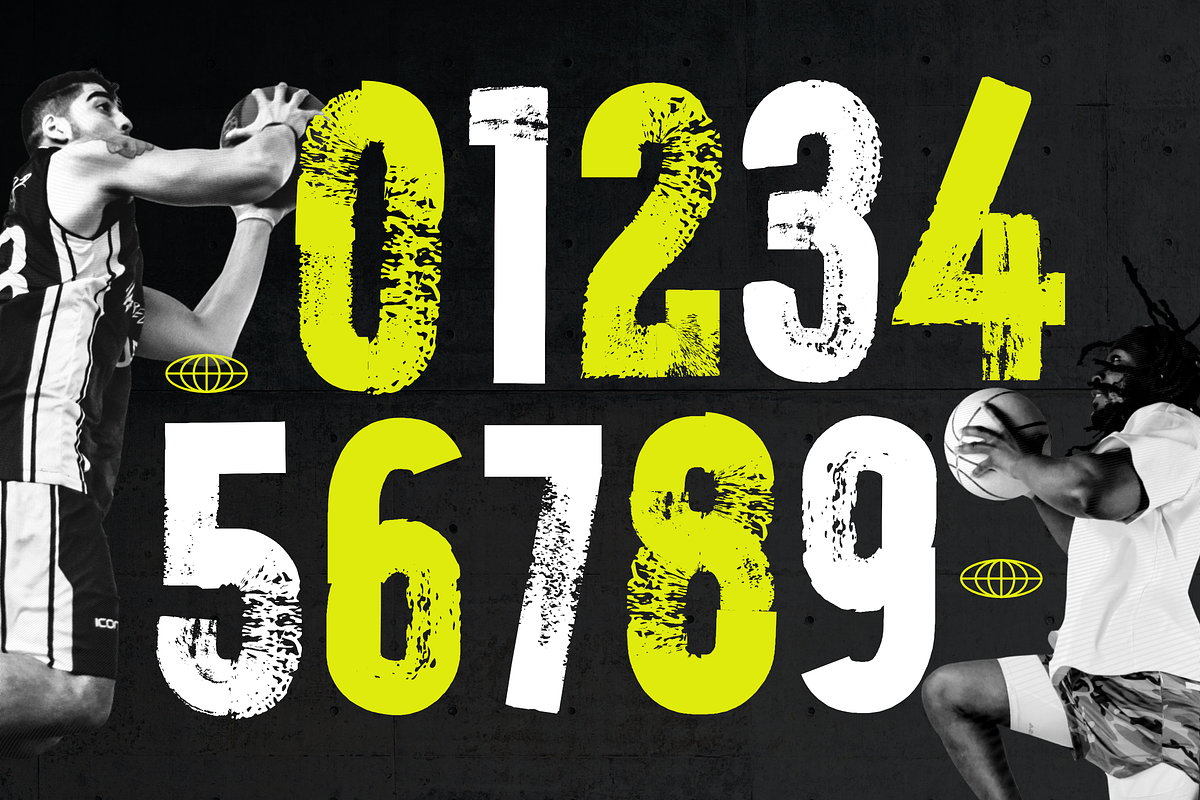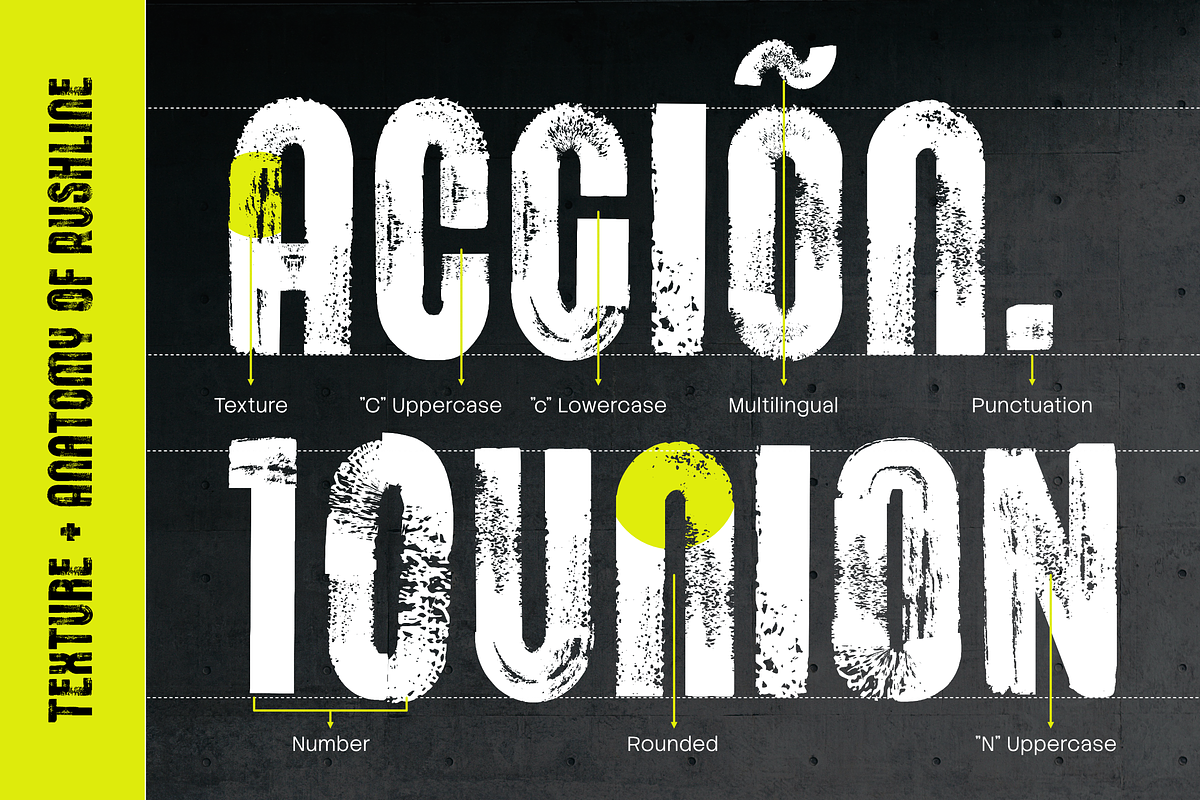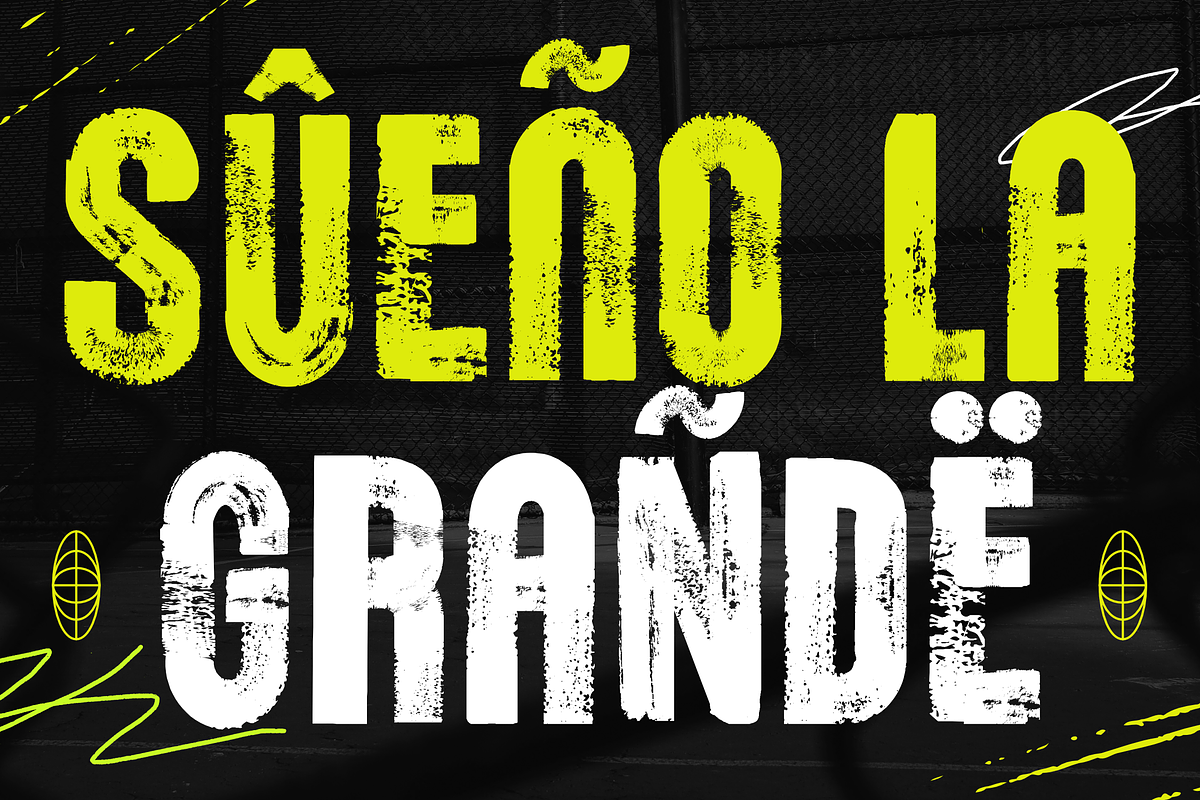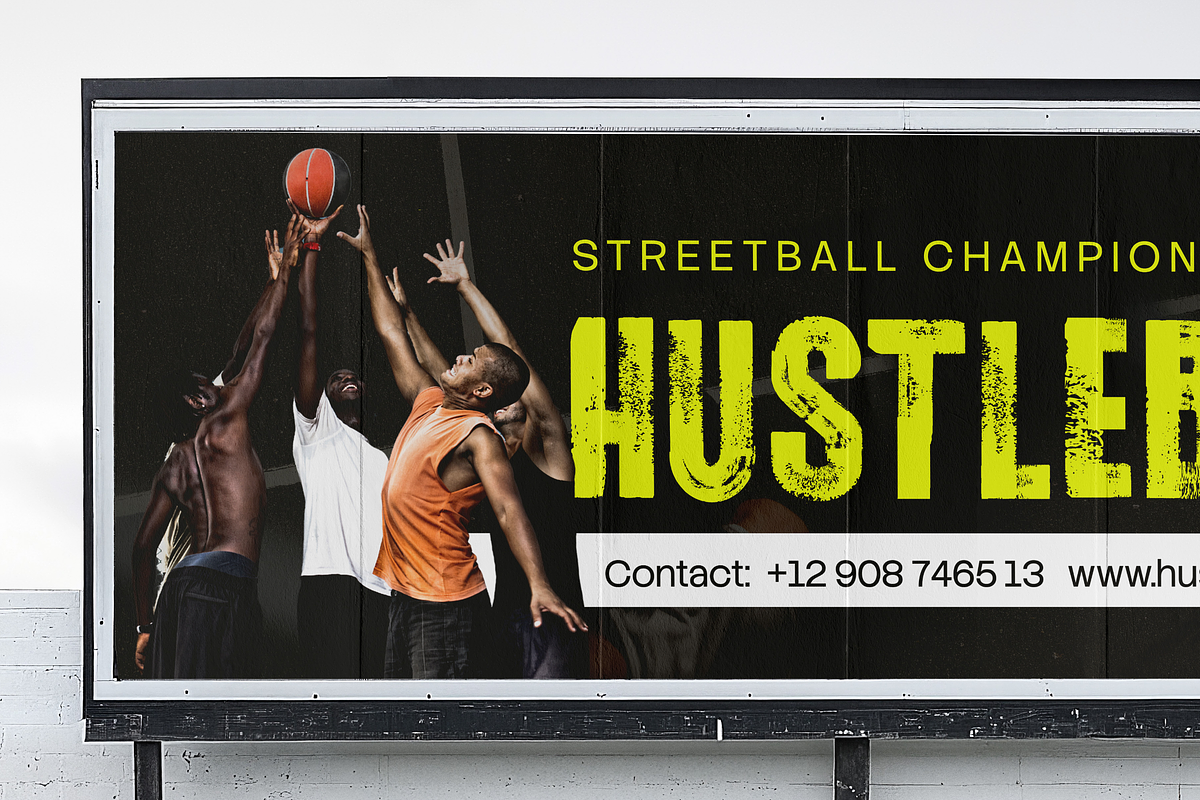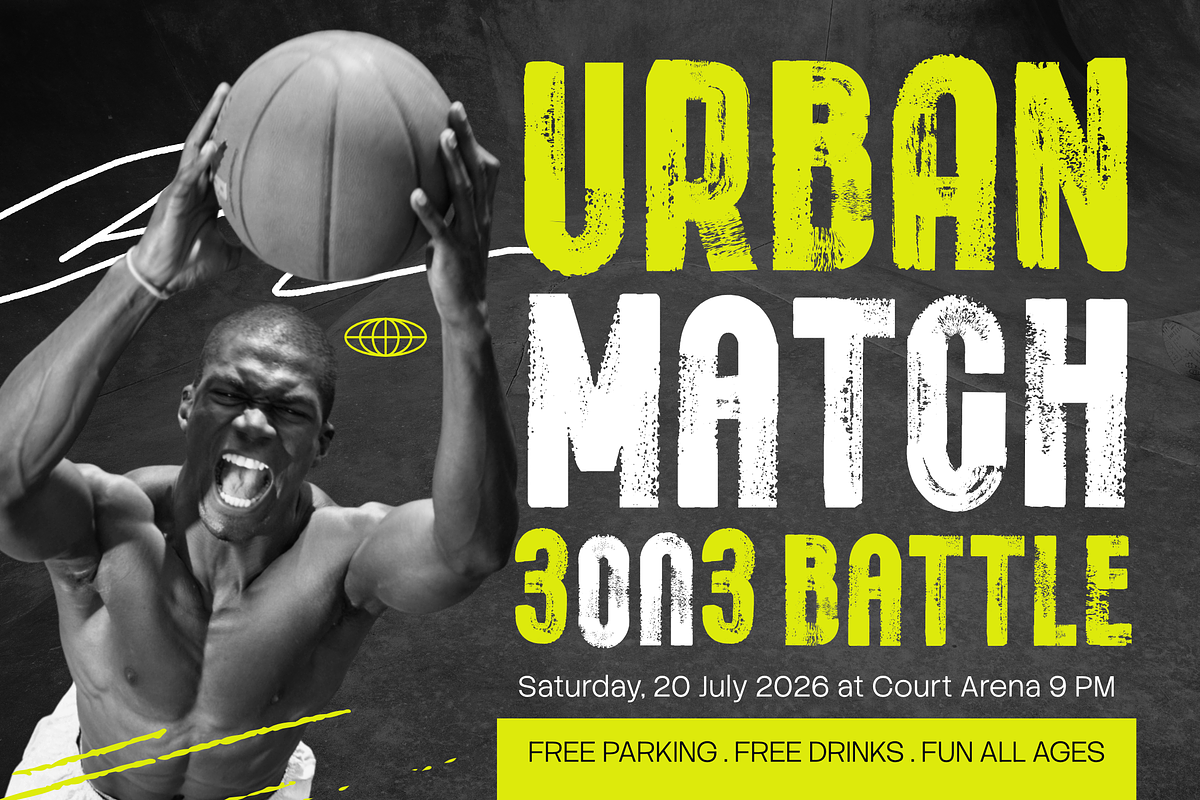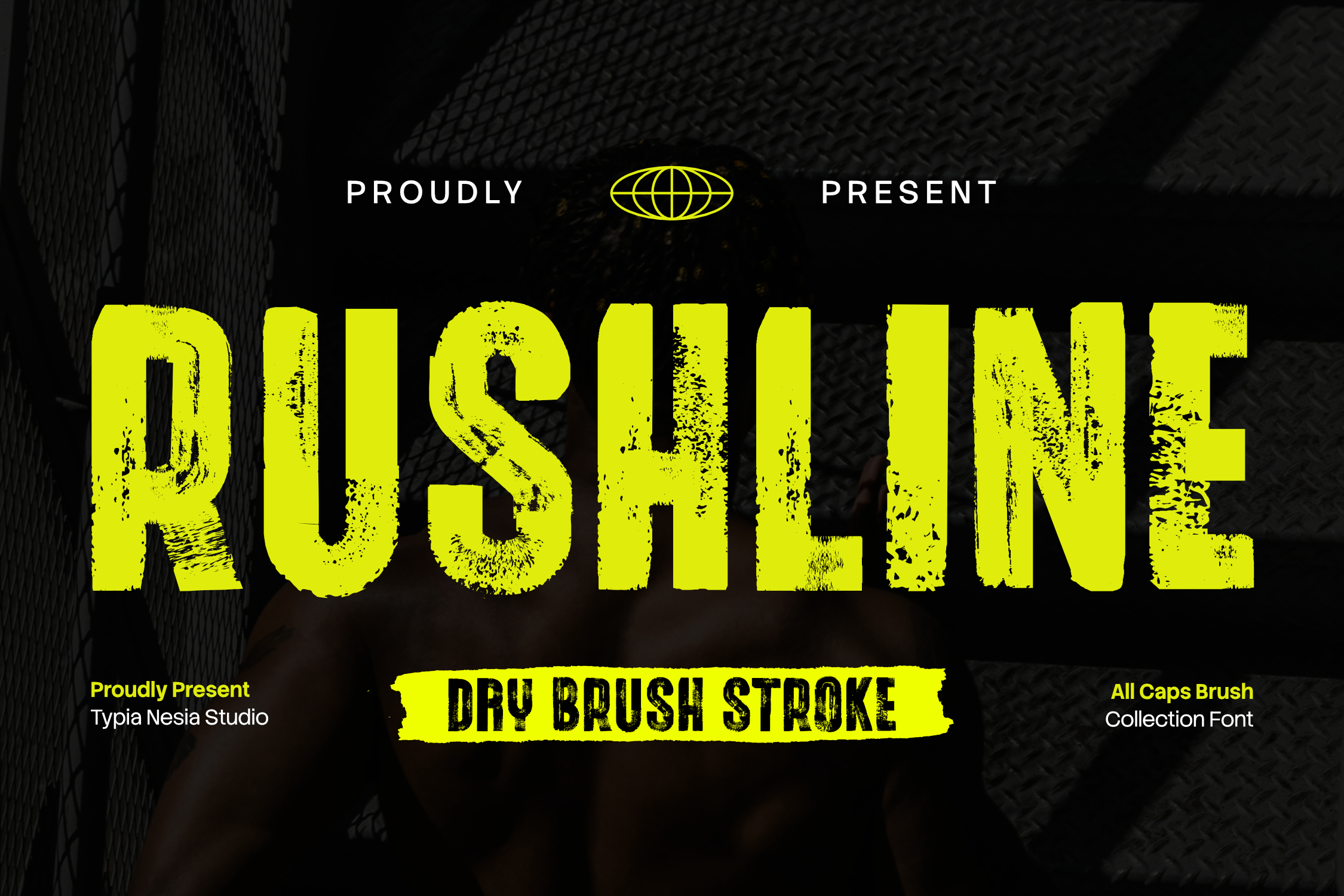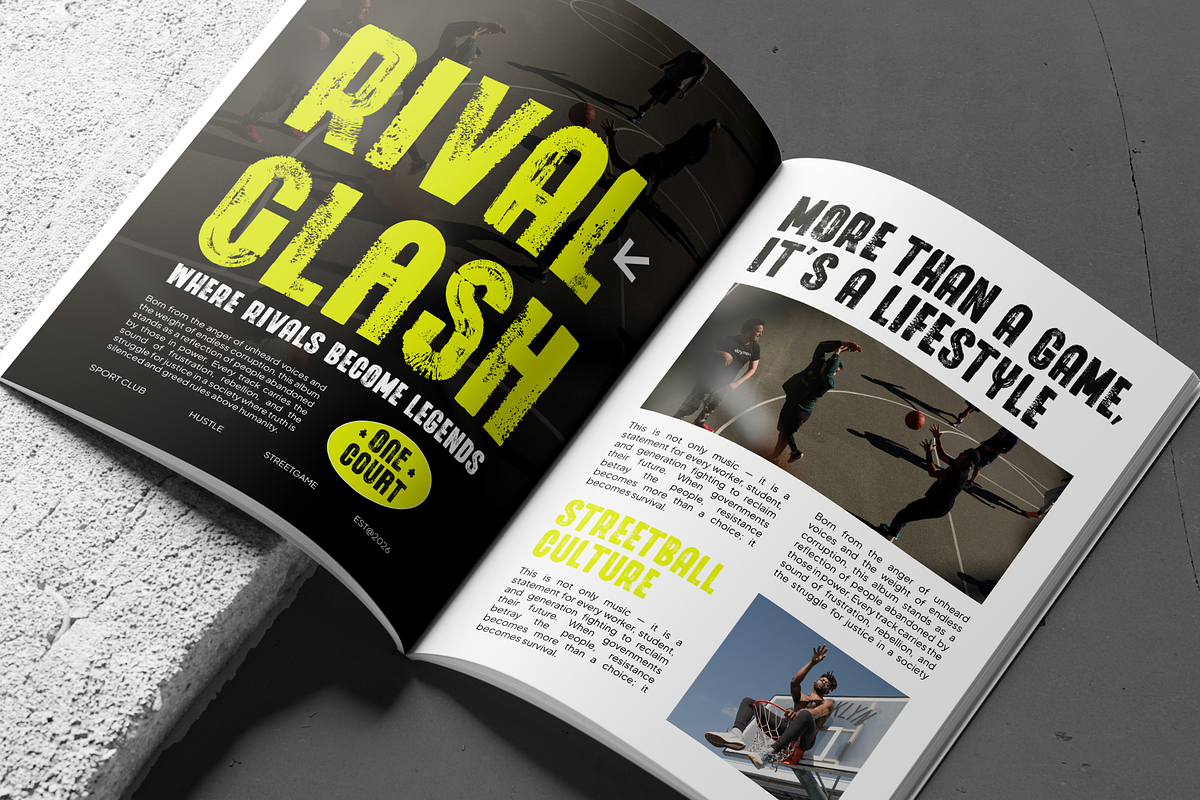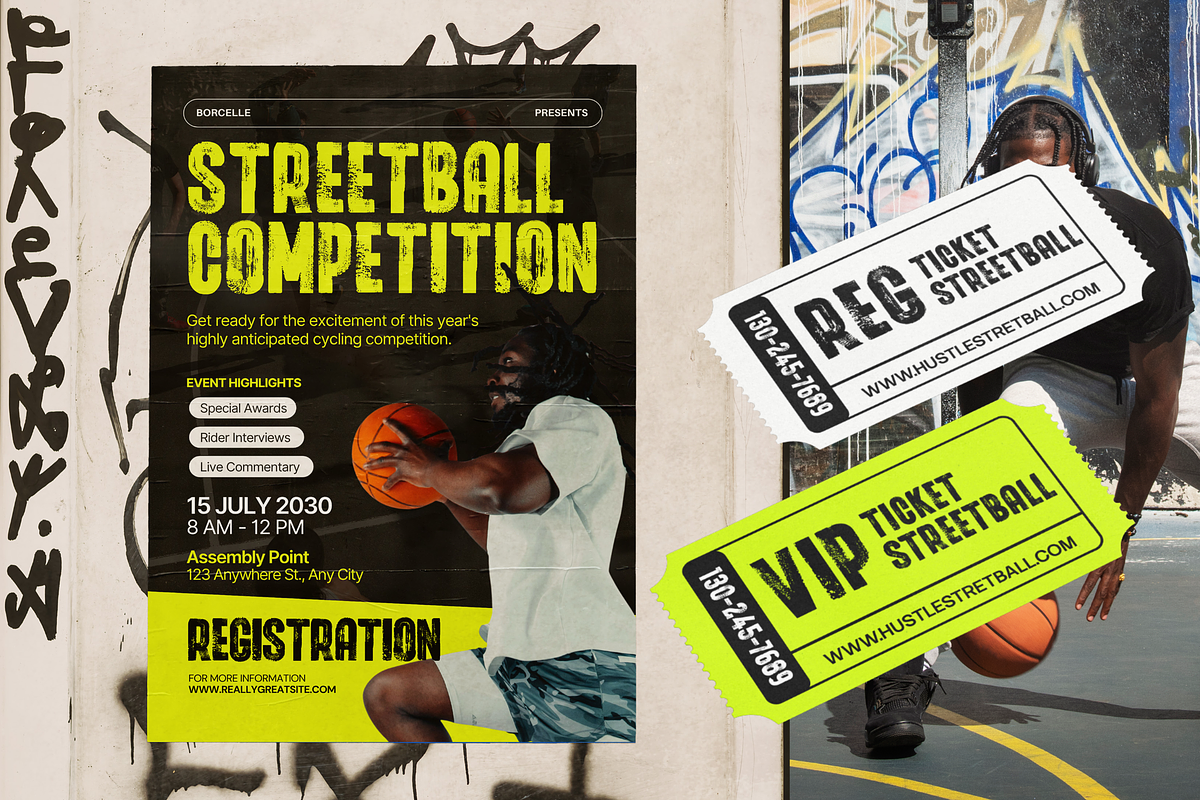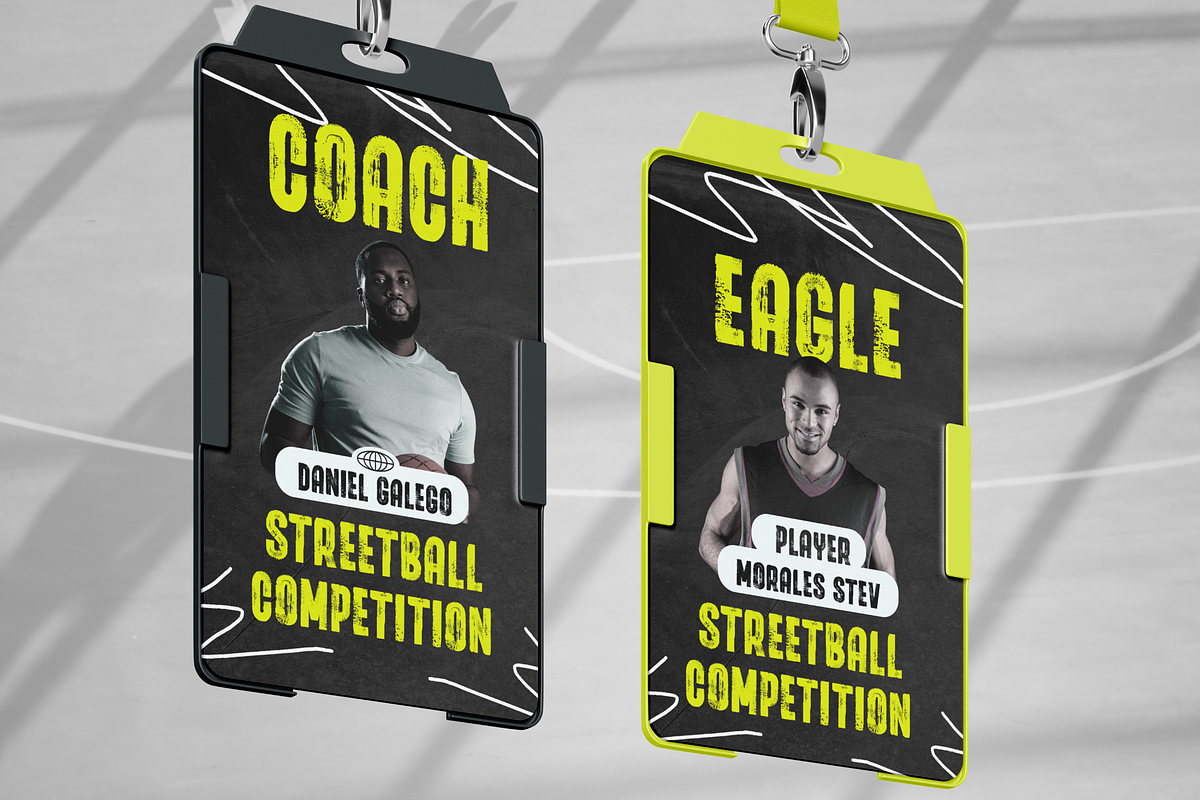
Rushline - Bold Dry Brush Sport Font
Rushline - Dry Brush Display Font for Sports & Bold Branding
Rushline is a bold dry brush display font featuring authentic handcrafted brush textures and powerful all-caps letterforms. Designed to convey strength, movement, and raw energy, it creates striking headlines that immediately grab attention across modern branding and promotional designs.
Perfect for sports branding, fitness campaigns, labels, gym identities, music artwork, event posters, product packaging, social media content, and bold editorial layouts. Bring unstoppable energy and handcrafted attitude to every headline with Rushline.